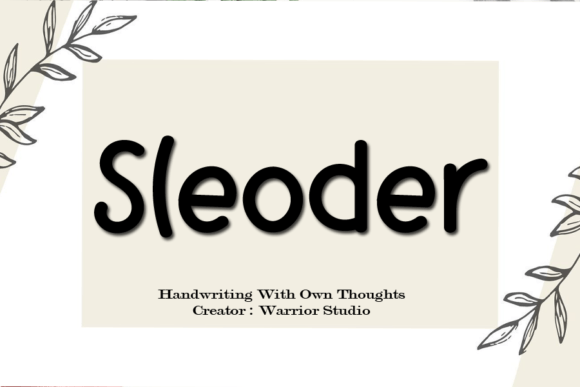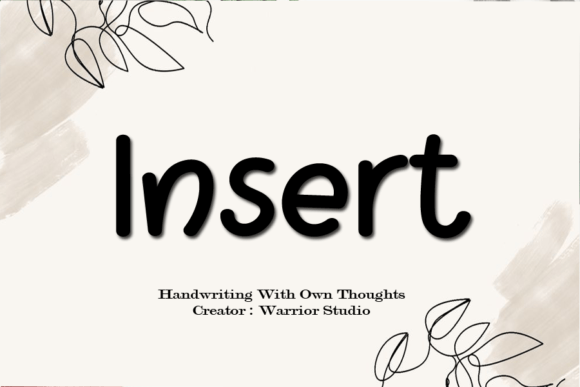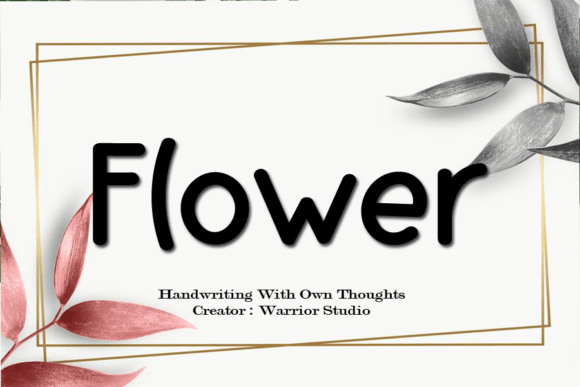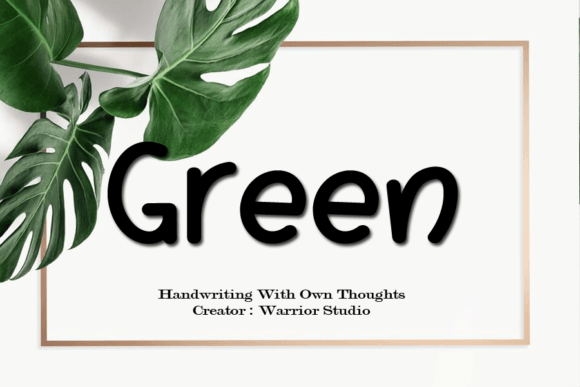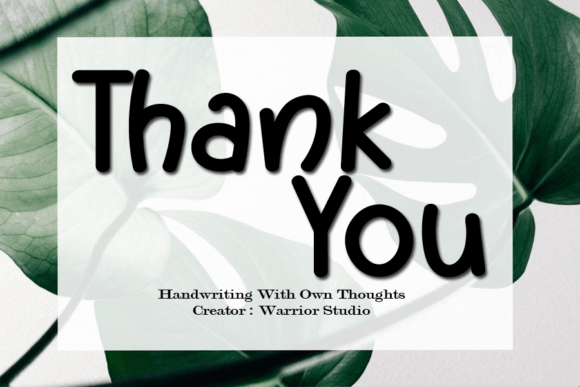
About Sleoder Font
**Sleoder Font: Sweet and Cursive Handwritten Elegance**
Meet “Sleoder,” a sweet and cursive handwritten font that brings a touch of elegance to your creative projects. This gentle font is designed to look gorgeous and add a joyful, romantic touch to a variety of design ideas. Whether it’s wedding invitations, thank you cards, quotes, greeting cards, logos, business cards, or any other design that needs a handwritten touch, Sleoder is here to shine.
**Sweet and Cursive Elegance:**
Sleoder embodies sweetness and cursive elegance. The gentle, flowing strokes of the font create a visual appeal that is both charming and refined. This makes it an ideal choice for projects where a handwritten touch is desired.
**Versatile for Various Designs:**
This font is crafted to be versatile, seamlessly adapting to various design needs. Whether you’re working on wedding invitations, thank you cards, quotes, or business logos, Sleoder brings a consistent touch of elegance to each project.
**Joyful and Romantic Touch:**
Sleoder adds a joyful and romantic touch to your designs. The cursive script creates a sense of warmth and intimacy, making it perfect for projects that aim to convey emotions and sentiments.
**Stunning on Wedding Invitations:**
Create stunning wedding invitations with Sleoder. The font’s romantic and elegant nature enhances the beauty of wedding-related materials, setting the tone for a memorable celebration.
**Perfect for Thank You Cards and Greeting Cards:**
Express gratitude and send warm wishes with Sleoder on thank you cards and greeting cards. The handwritten touch adds a personal and heartfelt dimension to your messages.
**Ideal for Logos and Business Cards:**
Sleoder is equally stunning on logos and business cards. Whether you’re crafting a brand identity or creating professional materials, this font adds a touch of personality and charm.
Sleoder is not just a font; it’s an invitation to infuse your designs with sweetness and elegance. Let it be the cursive script that brings joy and romance to your projects, creating a lasting impression with its timeless and handwritten beauty.